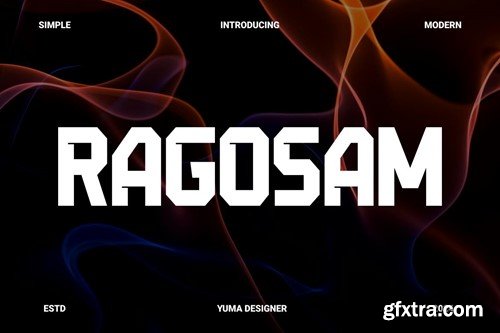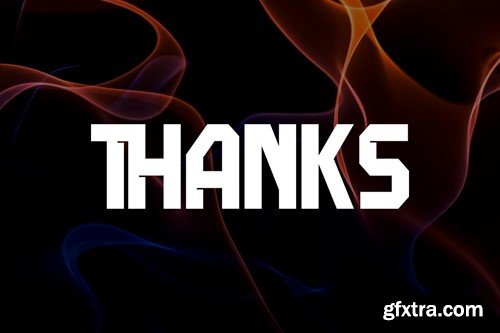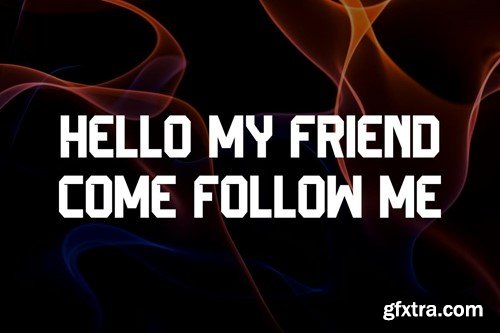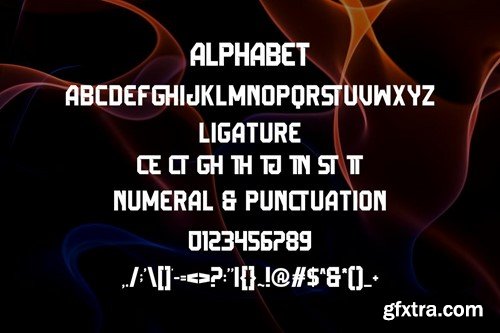
Ragosam - a Popular Font
Introducing Ragosam Modern Sans Serif Font. Ragosam is a modern and simple font, best used as a display for headings, logos, branding, magazines, product packaging and invitations. Ragosam come with clean lines and smooth curves give any project an extra touch of class. What you get: Thank you.